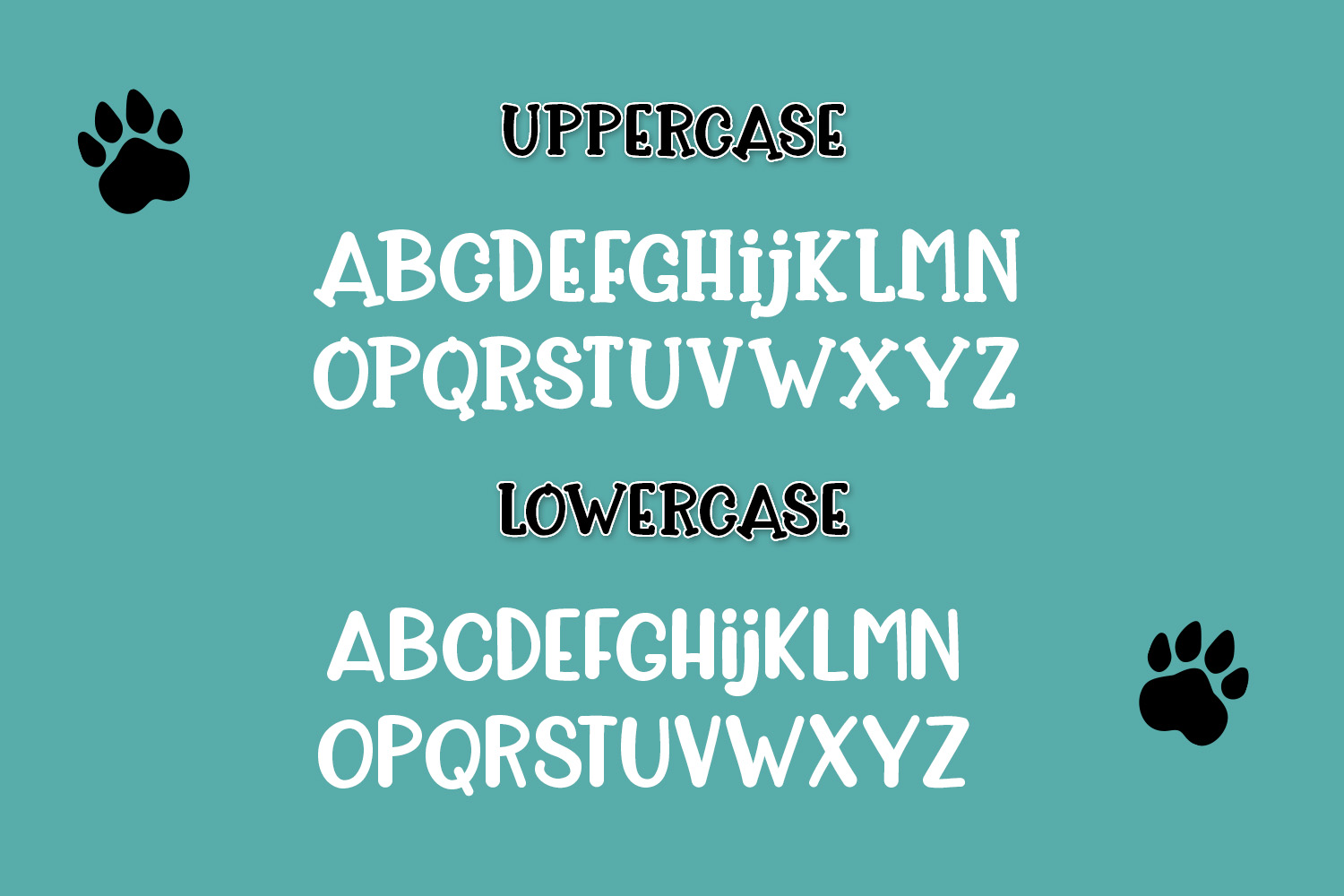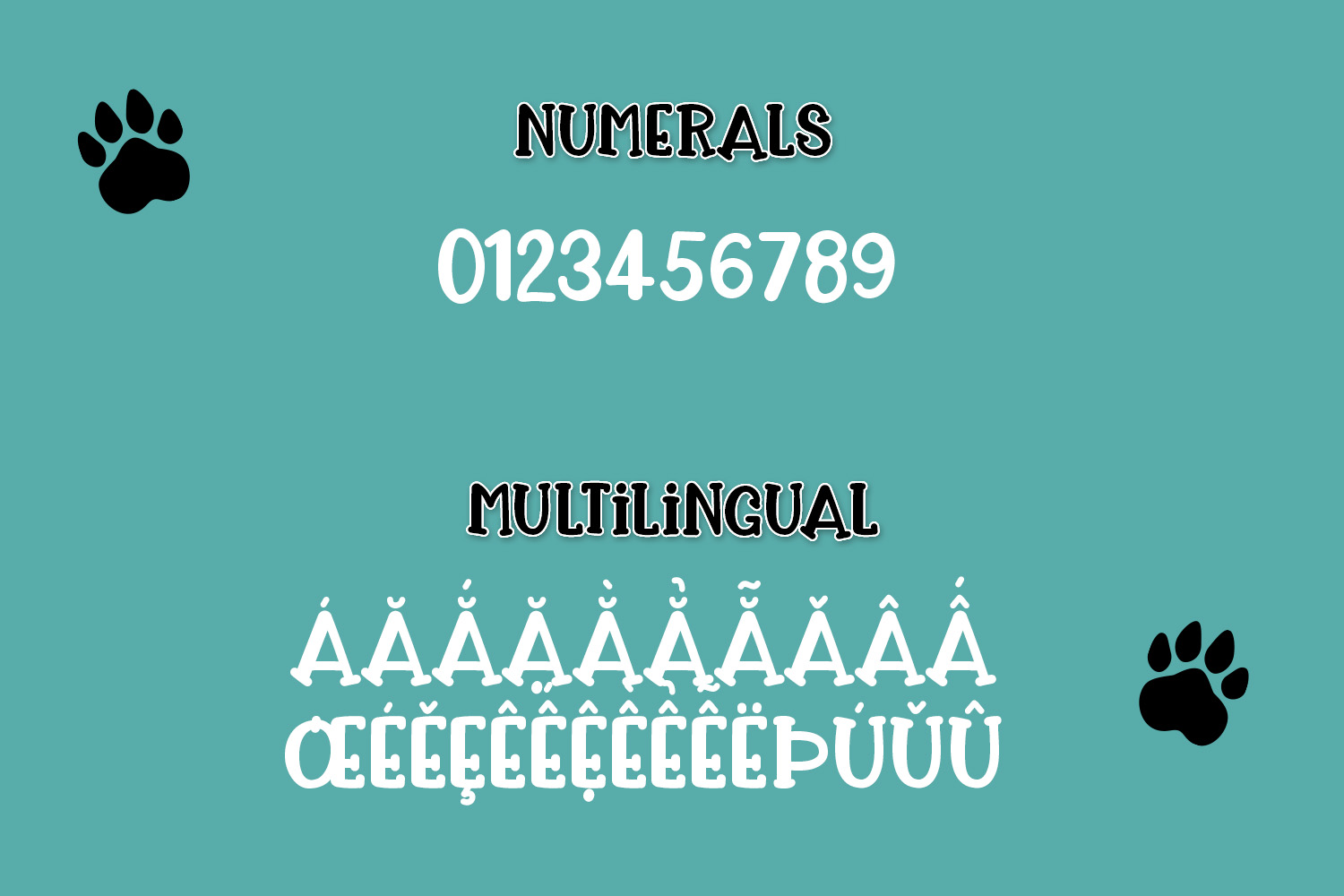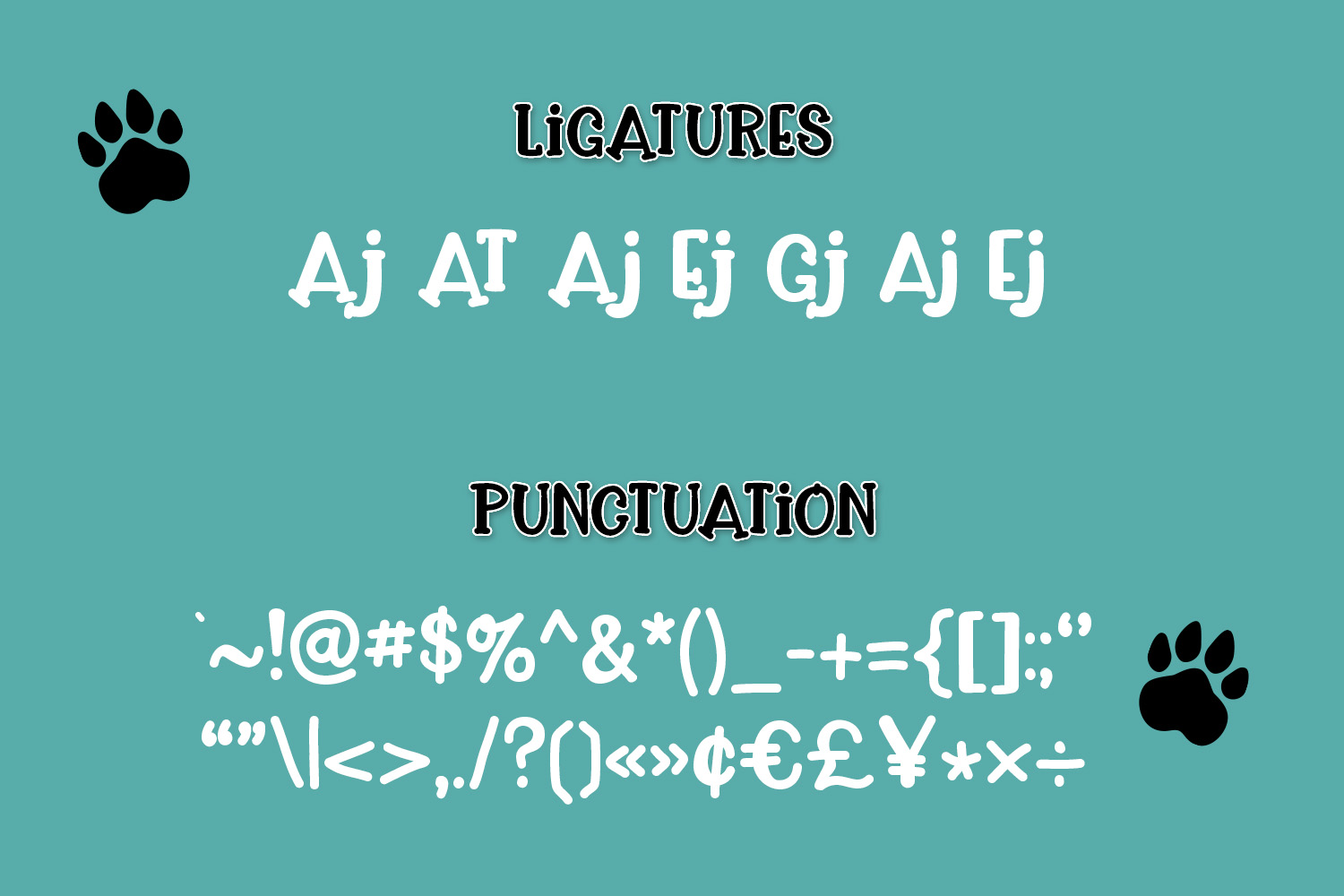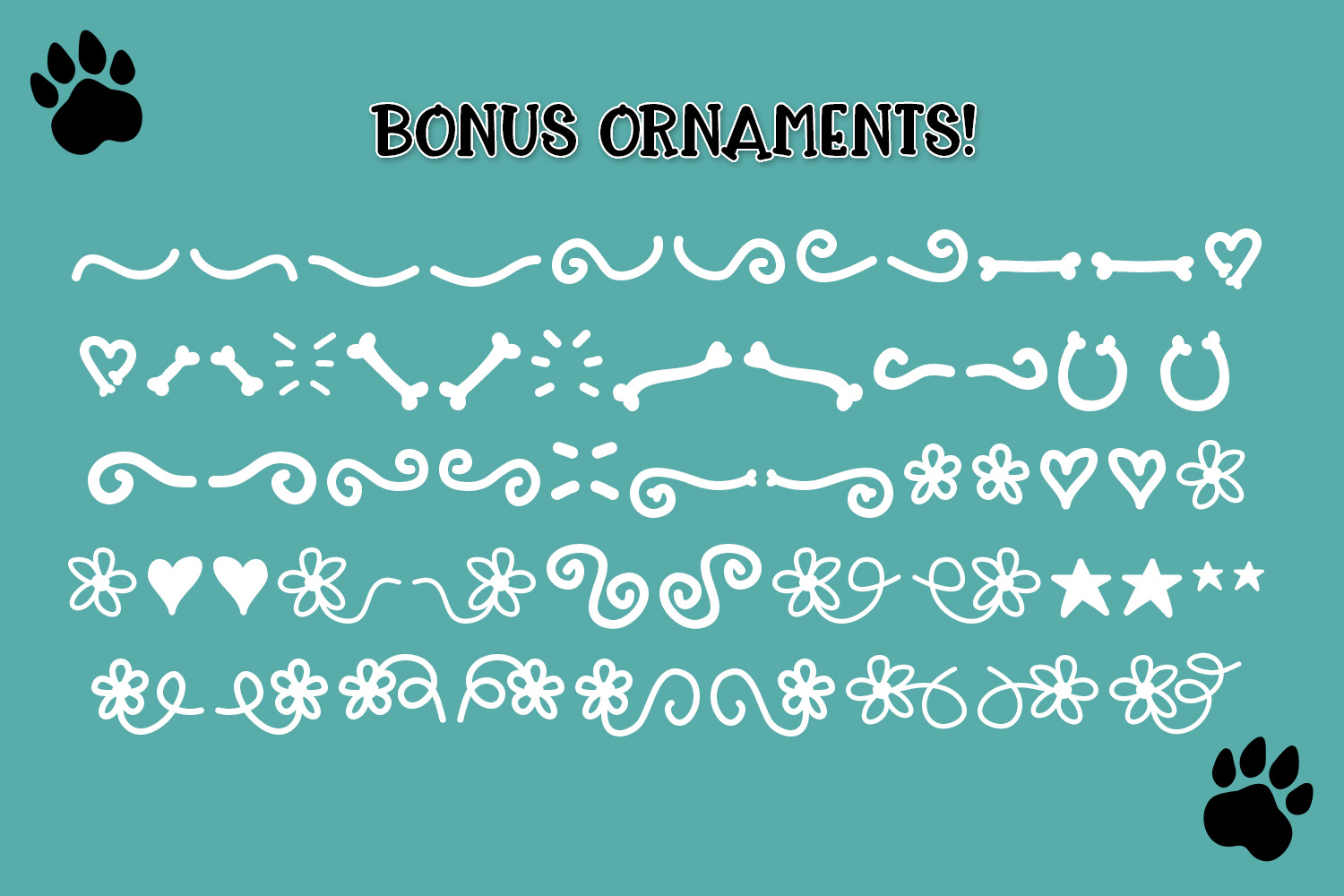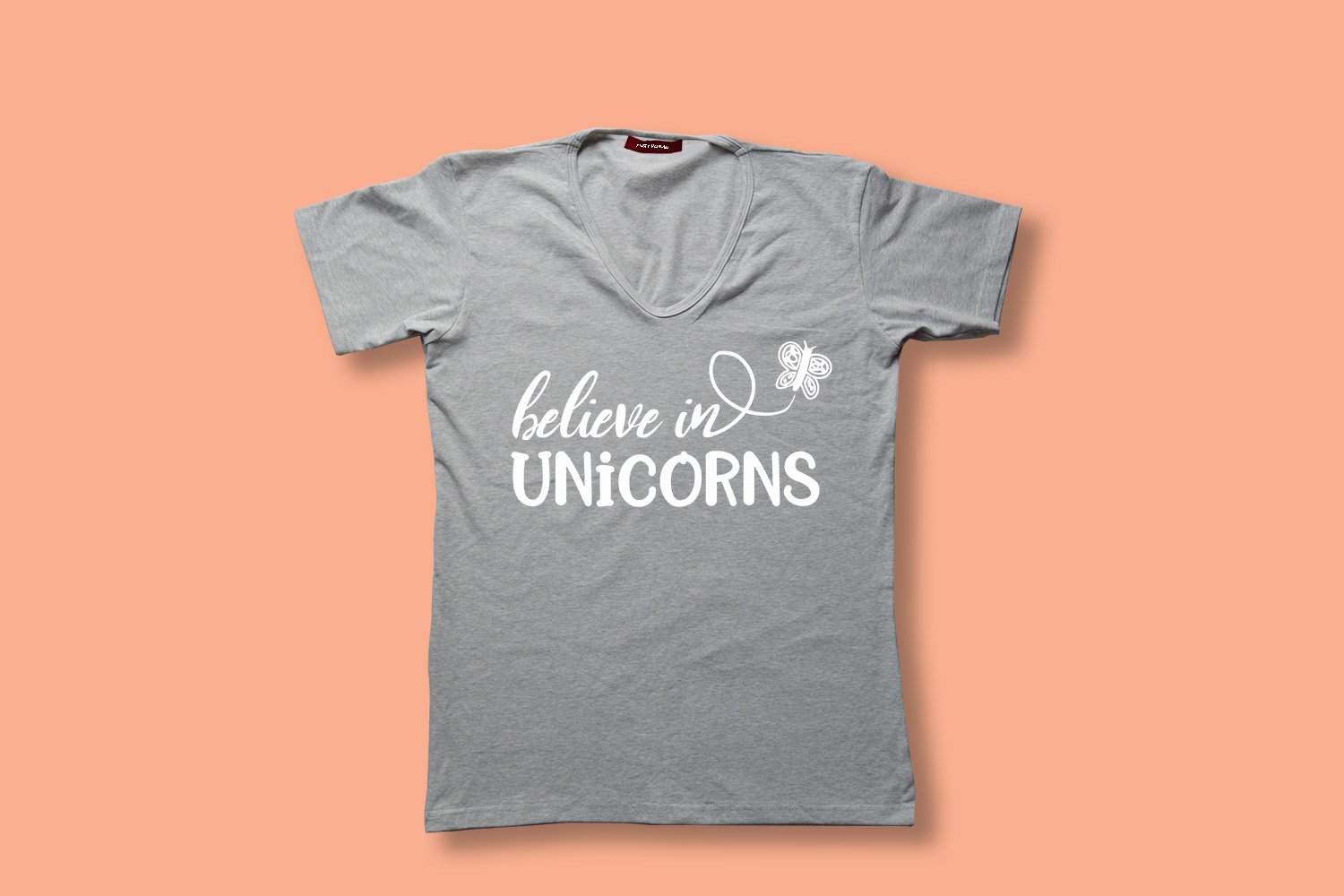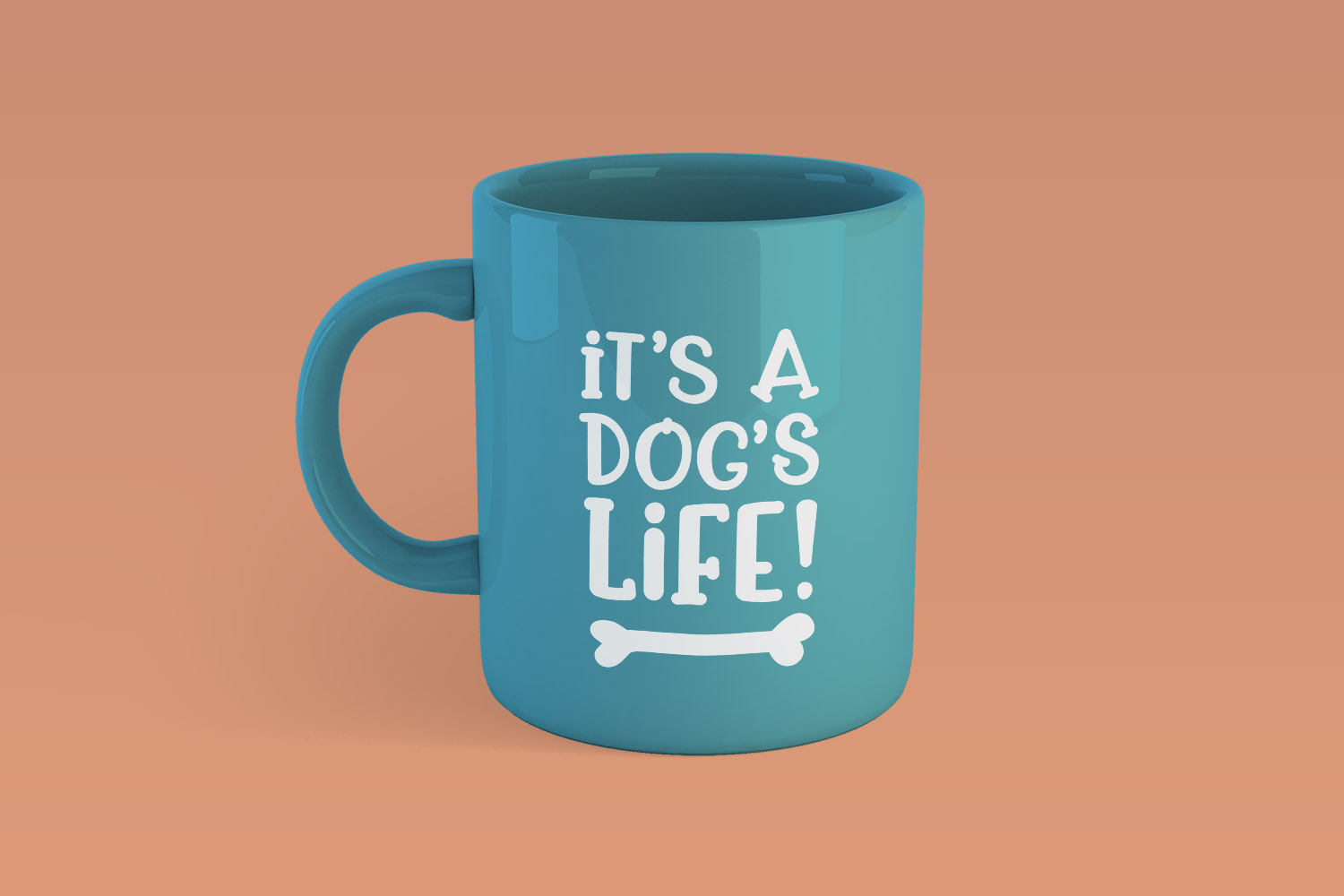
Unleash Your Creativity with Delightful Dog Font
Are you a designer, crafter, or DIY enthusiast looking for a fun and quirky font to add a personal touch to your projects? Look no further than the Delightful Dog Font! This all-caps display font is perfect for adding a playful twist to your designs, and its simplicity makes it easy to use for a wide range of applications.
What is Delightful Dog Font?
Delightful Dog Font is a fun and simple to use all-caps display font that is sure to bring a smile to your face. Its playful and quirky design makes it perfect for use on a variety of materials, including shirts, mugs, covers, and more. Whether you’re a professional designer or a crafty DIY enthusiast, this font is sure to add a touch of personality to your projects.
Key Features of Delightful Dog Font
- All-caps display font: Delightful Dog Font is an all-caps font, making it perfect for headlines, titles, and other applications where you want to make a statement.
- Simple to use: Despite its playful design, Delightful Dog Font is easy to use and works seamlessly with most design software.
- Quirky and fun: This font is perfect for adding a touch of whimsy to your designs, making it ideal for projects that require a bit of personality.
- Bonus ornaments font file: The Delightful Dog Font package comes with a bonus font file that includes the doodles shown in the product image, giving you even more creative possibilities.
Uses for Delightful Dog Font
Delightful Dog Font is a versatile font that can be used for a wide range of applications, including:
- T-shirts and apparel: Add a fun and quirky touch to your t-shirt designs with Delightful Dog Font.
- Mugs and ceramics: Make your mug and ceramic designs stand out with this playful font.
- Signs and posters: Use Delightful Dog Font to add a touch of whimsy to your signs and posters.
- Digital graphics: This font is perfect for use in digital graphics, such as social media graphics, blog headers, and more.
Delightful Dog Font offers a range of benefits for designers and crafters, including:
- Ease of use: This font is simple to use and works seamlessly with most design software.
- Time-saving: The bonus ornaments font file saves you time and effort by providing you with additional design elements.
- Unique designs: Delightful Dog Font allows you to create unique and eye-catching designs that will stand out from the crowd.
Tips for Using Delightful Dog Font
Here are a few tips for getting the most out of Delightful Dog Font:
- Experiment with different colors: Delightful Dog Font looks great in a range of colors, so don’t be afraid to experiment and find the perfect hue for your design.
- Use it with other fonts: This font pairs well with other fonts, so try combining it with a more serious font to create a striking contrast.
- Take advantage of the bonus ornaments: The bonus ornaments font file is a great way to add extra design elements to your project, so be sure to take advantage of it.
Delightful Dog Font is a fun and quirky all-caps display font that is perfect for adding a touch of personality to your designs. With its simplicity, ease of use, and bonus ornaments font file, this font is a must-have for designers and crafters looking to create unique and eye-catching designs. So why not give it a try and see how Delightful Dog Font can unleash your creativity?